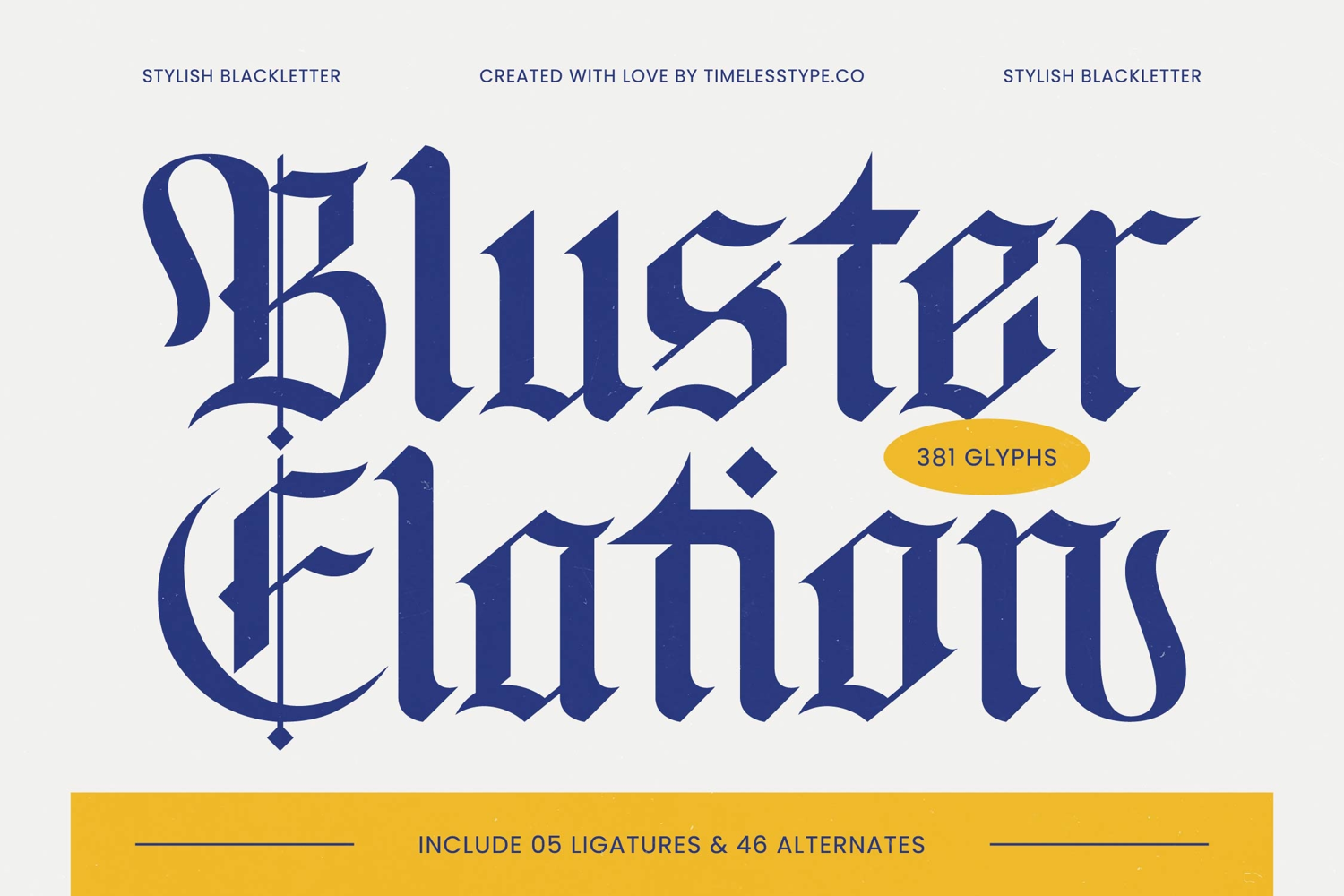
Bluster Elation - Stylish Blackletter Font
Bluster Elation
Bluster Elation Italic
Bluster Elation - Stylish Blackletter Font
Unleash unparalleled distinction with Font Bluster Elation - Stylish Blackletter Font Blackletter. This typeface commands attention with its bold presence and historic elegance, reimagining classic forms for a modern era. Its commanding letterforms and inherent grandeur make it the ultimate choice for projects demanding gravitas and a unique visual signature.
Discover the profound depth in every character of Font Bluster Elation - Stylish Blackletter Font Blackletter. Crafted with meticulous precision, it boasts a wealth of opulent ligatures and unique alternates, providing unparalleled creative flexibility. The font's high-contrast strokes and sophisticated detailing ensure every design conveys a powerful and memorable aesthetic.
Expand your creative horizons effortlessly. With its extensive multilingual support, Font Bluster Elation - Stylish Blackletter Font Blackletter adapts seamlessly across global markets, making it incredibly versatile for international projects. This ensures your message resonates clearly and impactfully, regardless of geographical boundaries, enhancing its professional appeal.
Elevate your designs to a realm of prestige and sophistication. Font Bluster Elation - Stylish Blackletter Font Blackletter is perfect for luxury branding, premium packaging, editorial design, and exclusive invitations. It imbues brand identities with an air of refined exclusivity, making it an indispensable asset for designers aiming for a truly impactful and memorable visual narrative.